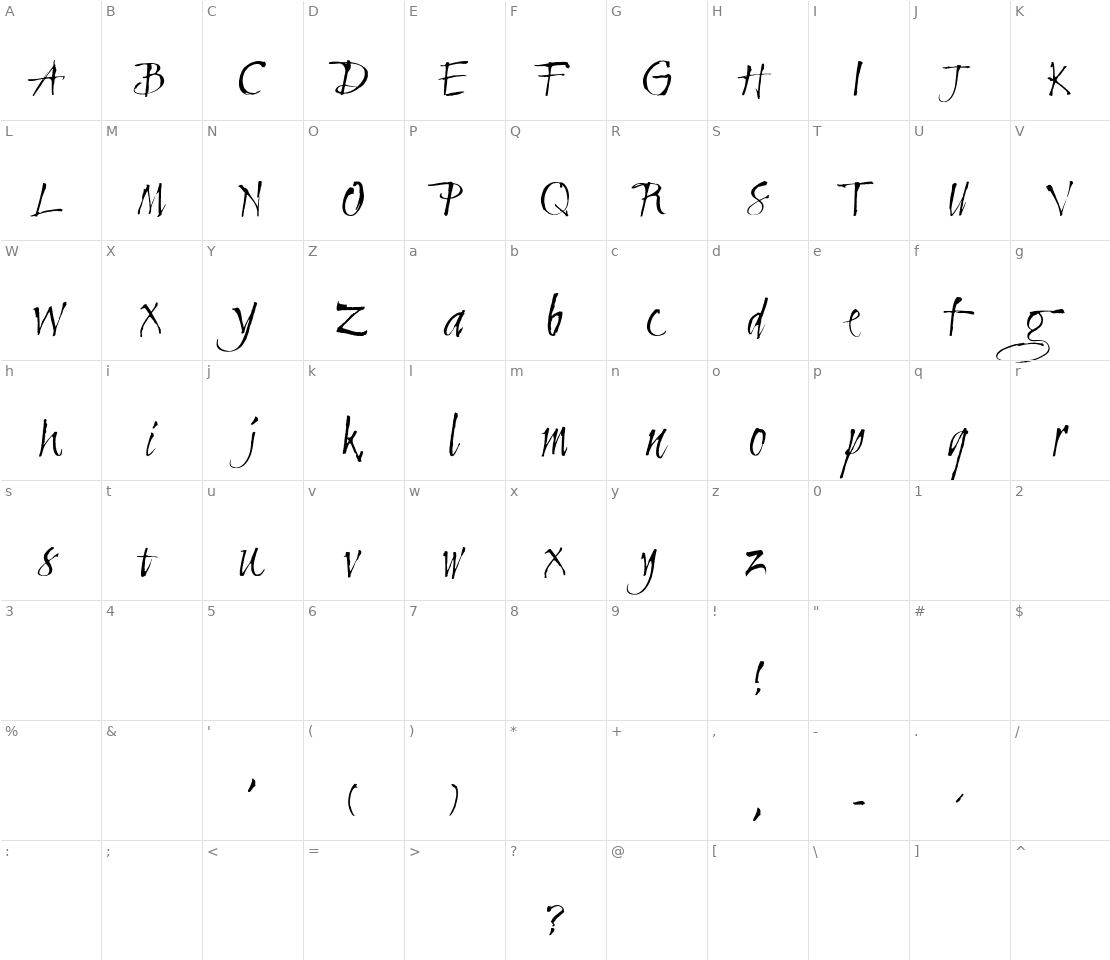
Clive Barker
by Joseph M. Pence
Clive Barker is a rough, hand-brushed display face by Joseph M. Pence with an unsettling, expressive quality that feels like something scrawled in haste across a dark surface. The irregular strokes and jagged edges channel the visceral horror aesthetic of its namesake, landing naturally on book covers, film titles, and poster work where darkness and artistry overlap. Best kept to headlines and short text where the raw, uneven energy of the brushwork can do its thing.